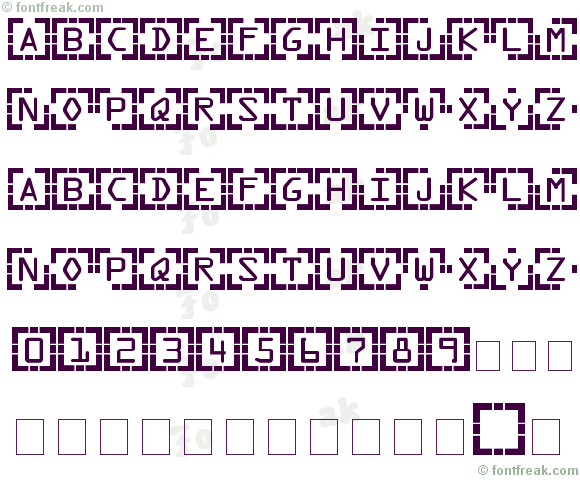
About Encounter
Encounter by Whoami Design is a striking display font that captures attention with its unique geometric and modern aesthetic. As a freeware typeface, it stands out not only for its style but also for its accessibility, making it an excellent choice for a variety of projects. The font features bold, block-like letters with a consistent stroke weight, creating a sense of stability and strength. Its design incorporates subtle decorative elements, such as angled cuts and rounded edges, which lend a contemporary flair while maintaining readability. The spacing between characters is carefully crafted, ensuring clarity even at larger sizes.
Encounter is particularly well-suited for use in eye-catching applications. It shines in contexts like event posters, where its bold presence can convey a strong message. Additionally, its distinctive style makes it an ideal choice for branding materials, such as logos and signage, where memorability is key. Small business owners looking to create a unique identity will find this font valuable for promotional materials, including flyers and social media graphics. Content creators can also utilize Encounter in digital publications, enhancing visual interest in articles and blogs.
The target audience for Encounter includes graphic designers seeking fresh and innovative typefaces, small business owners aiming to elevate their branding, and content creators in need of impactful typography. This font not only fulfills practical design needs but also provides a modern edge that appeals to a diverse range of users.
What sets Encounter apart is its ability to blend readability with a distinctive character. Its bold, geometric design makes it a versatile choice that can adapt to various moods and themes. With the Encounter font free download available, designers and creatives can easily incorporate this striking typeface into their projects, showcasing their work with a unique flair.